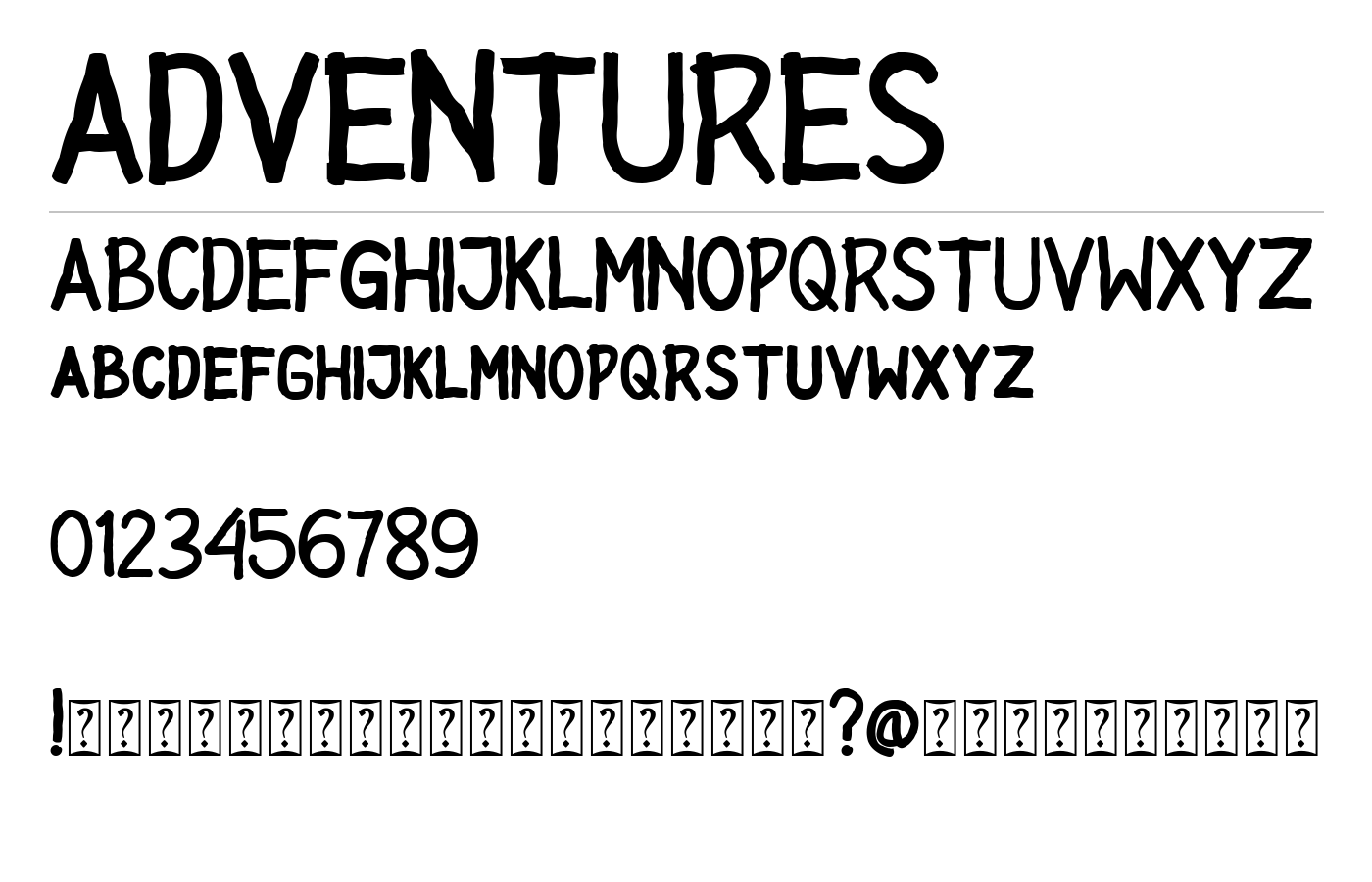
ADVENTURES is a playful and informal sans serif font with a hand-drawn, slightly uneven stroke that gives it a friendly and adventurous vibe. Its bold weight and upright stance make it eye-catching and approachable, perfect for creative projects, children’s designs, or casual branding. This font works well for headlines, posters, and anything that needs a lively and energetic feel.
ADVENTURES Font
About ADVENTURES Font